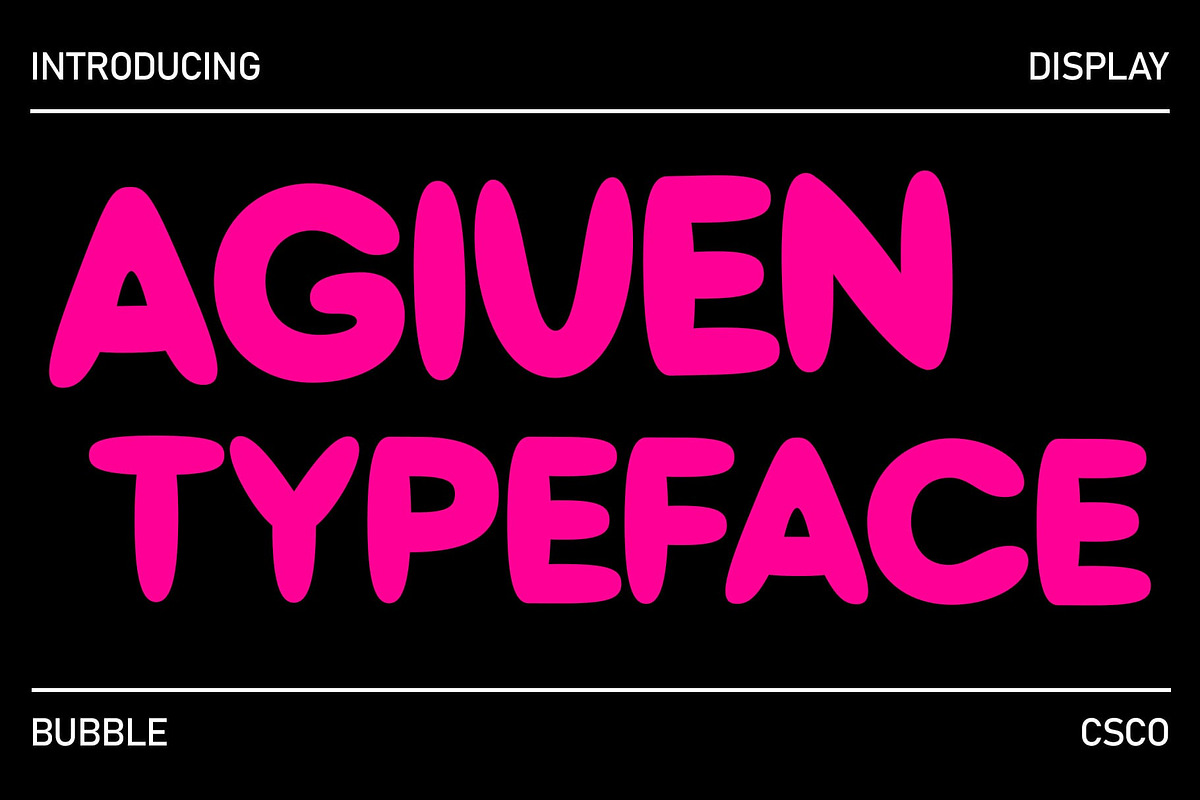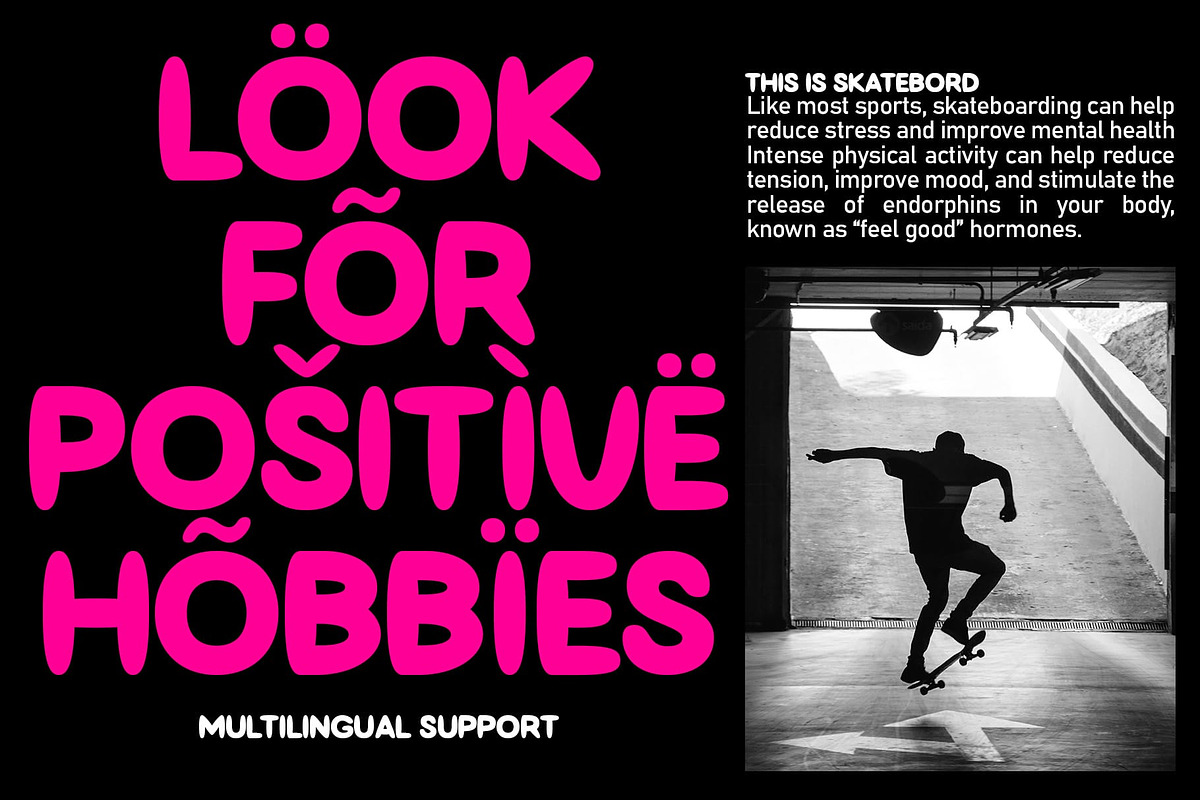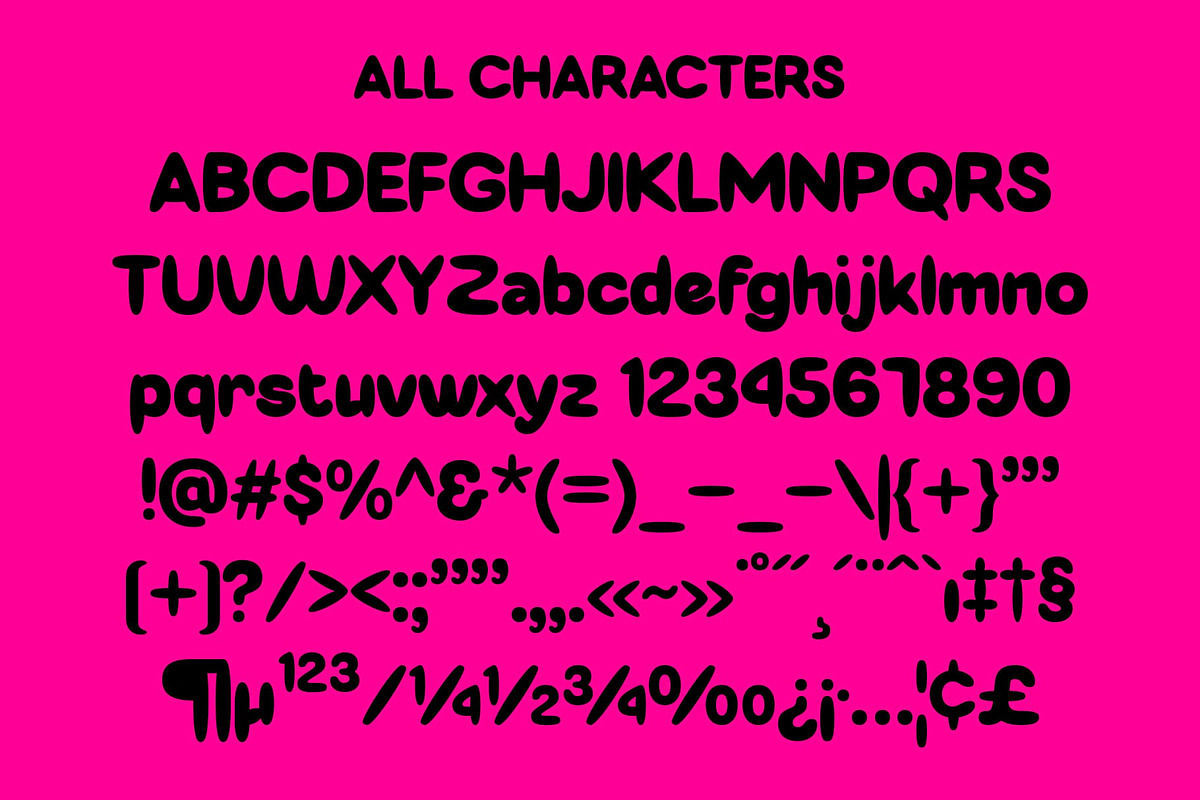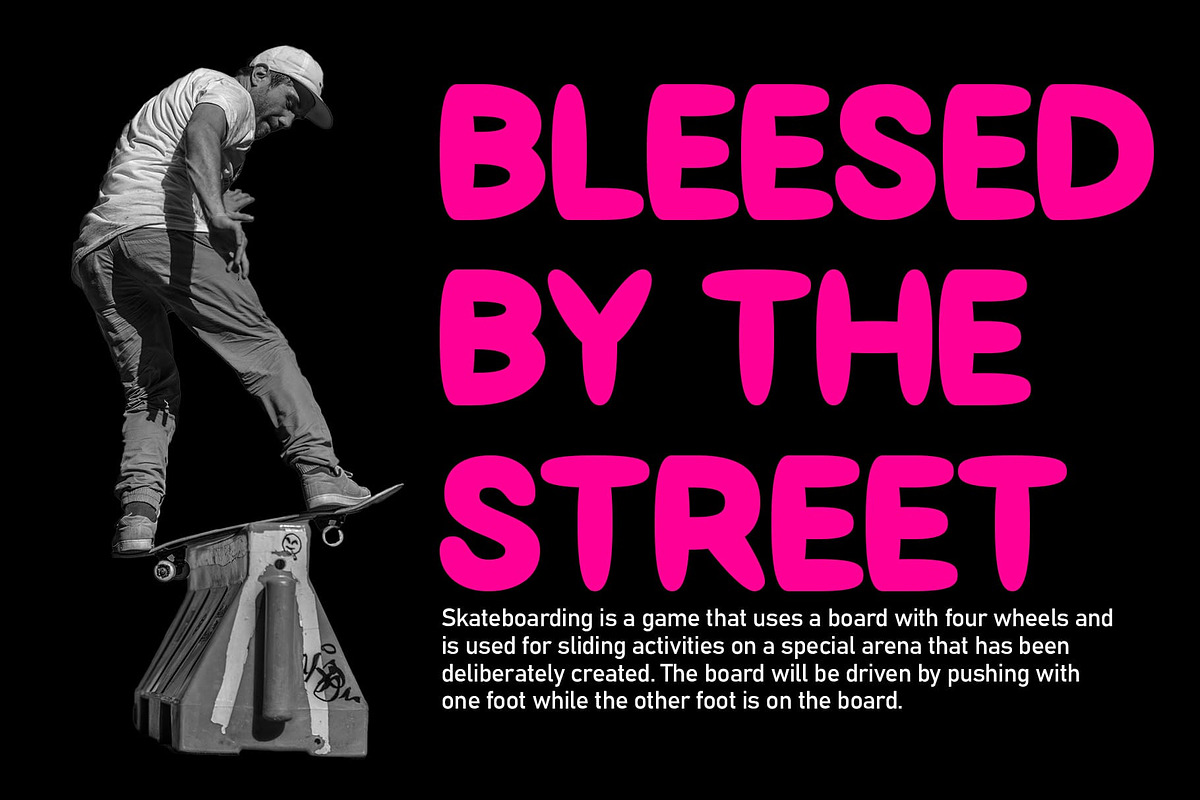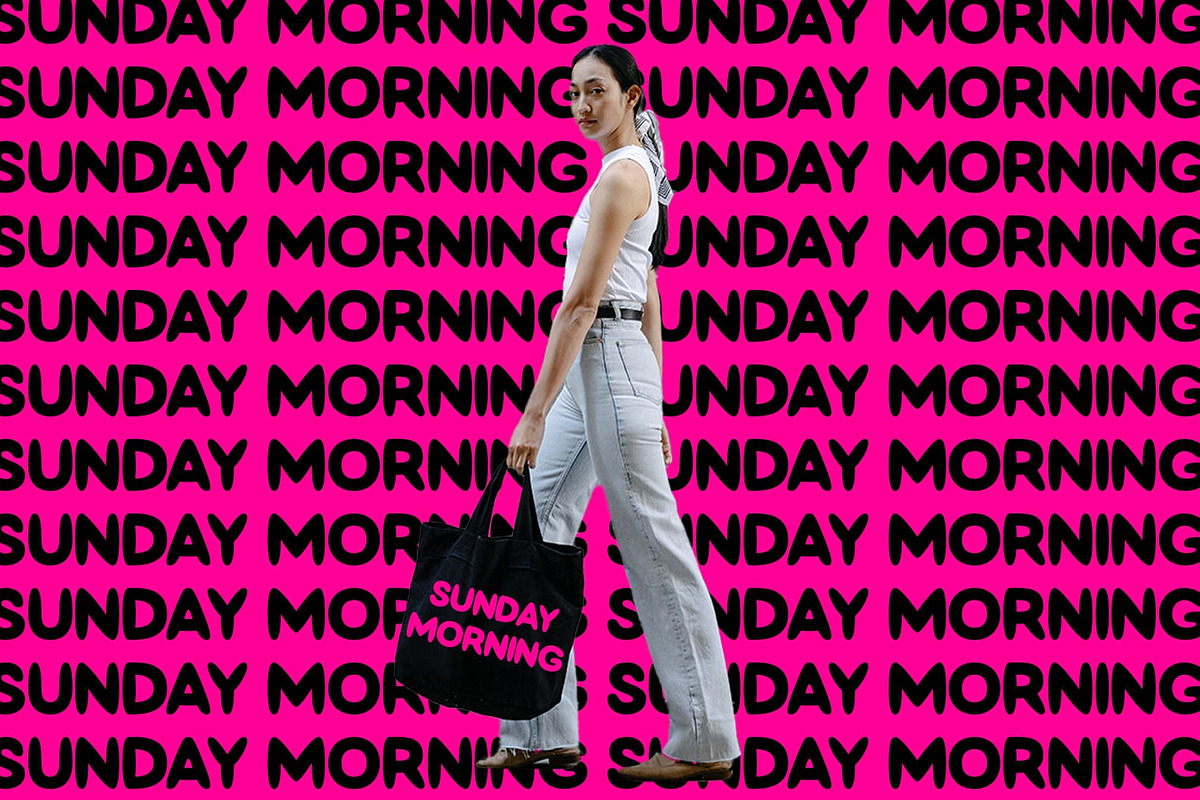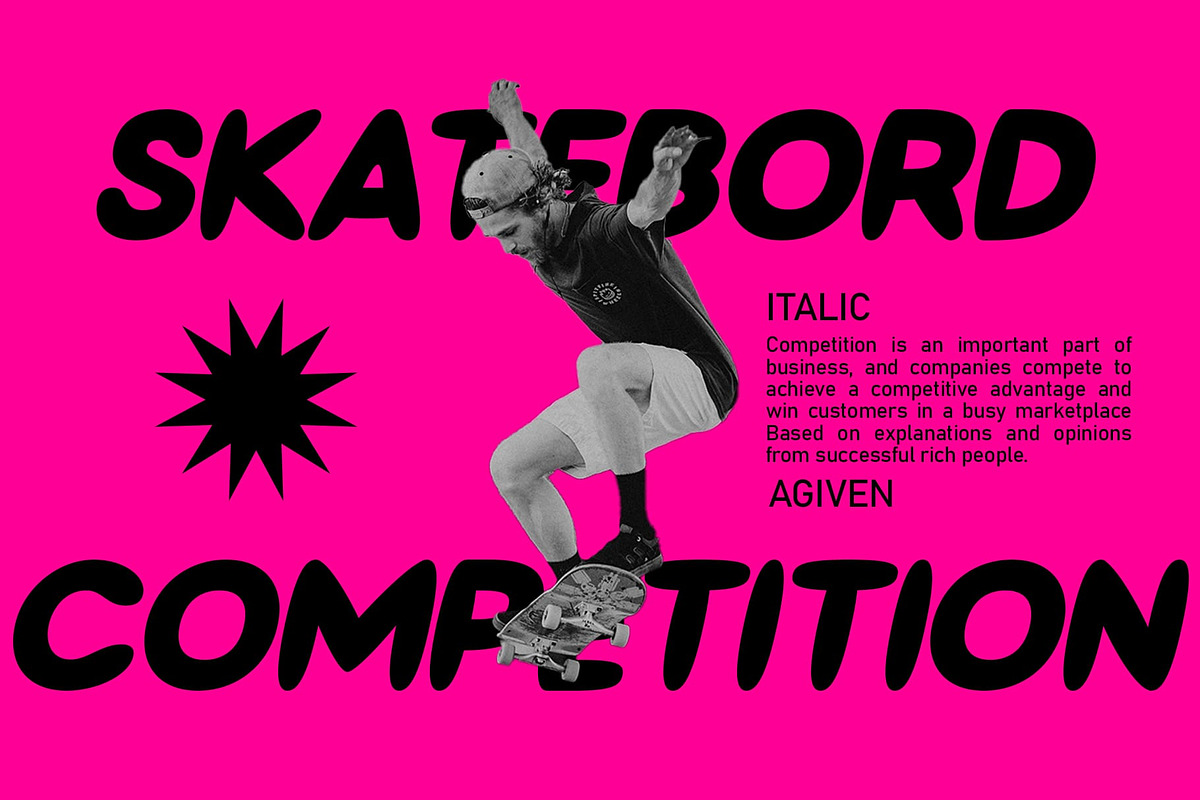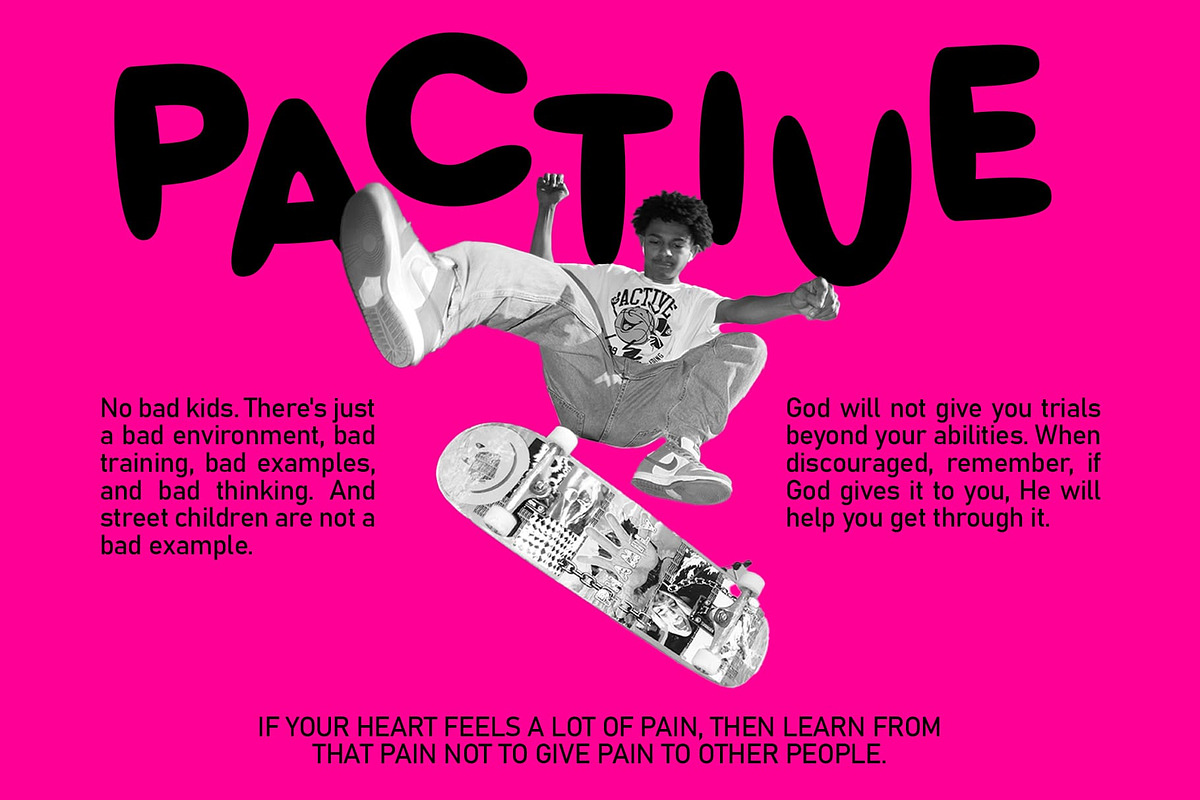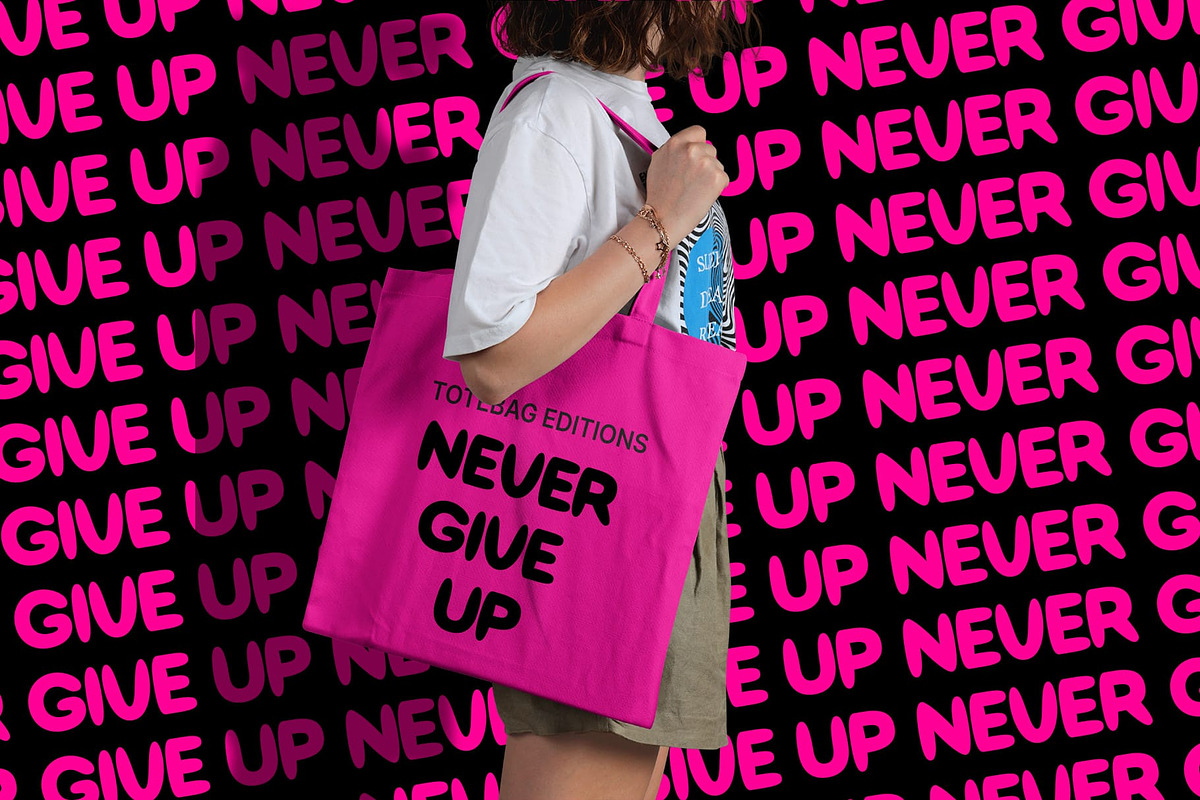
Agiven – Playful Font
Agiven: The Playful Bubble Font
Inspired by Childhood Agiven draws inspiration from the joyful world of childhood, with its bubbly shapes reminiscent of playful innocence and carefree moments.
Bubble-Inspired Design With its rounded, bubble-like forms, Agiven brings a sense of whimsy and lightheartedness to any design project. Its cheerful appearance adds a touch of delight to various visual elements.
Perfect for Playful Displays Tailored for playful displays, This font excels in conveying a sense of fun and creativity. Whether used in children’s books, toy packaging, or event invitations, its bubbly charm captures attention effortlessly.
Versatile Application Beyond its playful demeanor, This font offers versatility in application. From logos to posters, its friendly bubbles add a pop of personality to diverse design contexts.
Playfulness Meets Design Agiven emerges as a font where playfulness meets design, offering a delightful blend of childhood nostalgia and contemporary flair. With its bubbly shapes and cheerful vibe, it brings joy and vibrancy to any project it graces. Experience the whimsical charm of Agiven and infuse your designs with playful energy.